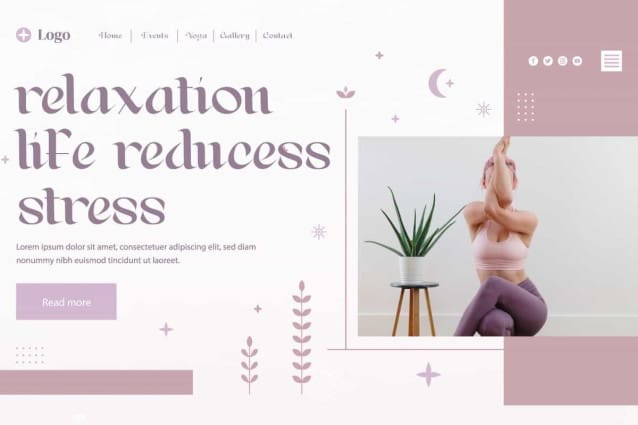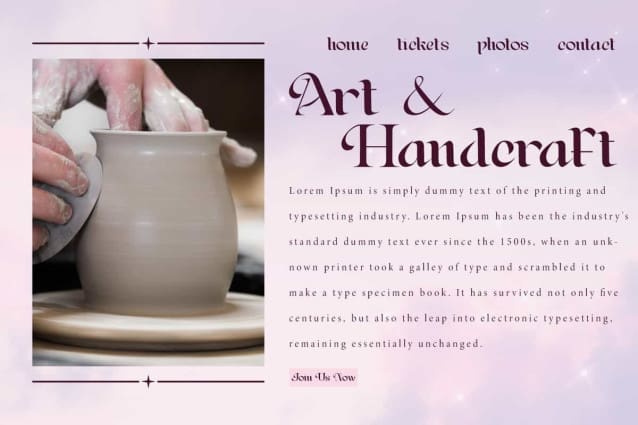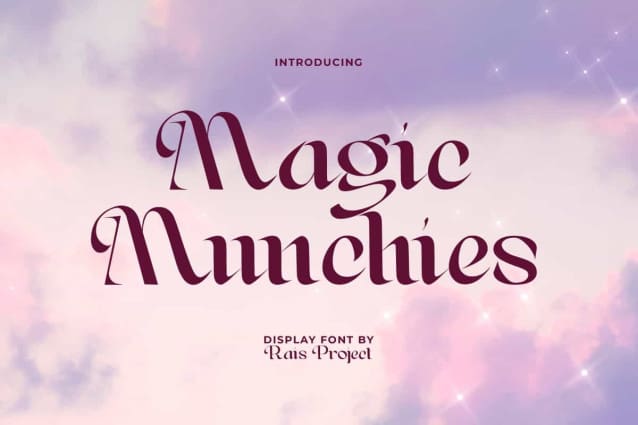
Magic Munchies Font
Magic Munchies Font is a magical serif display font with modern vibes. This font is created nicely so that it gives a beautiful and impressive appearance It will be good for any designs, such as brand image, cover, custom design, flyer, label, invitation, marketing material, poster, product packaging, quotes, signage, stationery, website page, and more!
Magic Munchies Font includes a full set of Uppercase and Lowercase Letters, Numerals, and large range of Punctuation. This stunning font will be suitable for various industries, such as accessories, advertising, beauty product, event or festival, fashion brand, marketing, printing, publishing, real estate, spa and salon, etc.